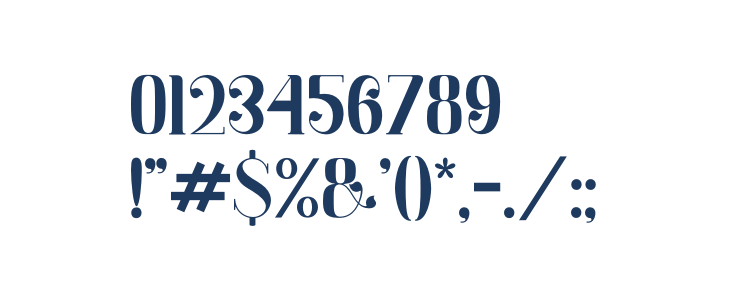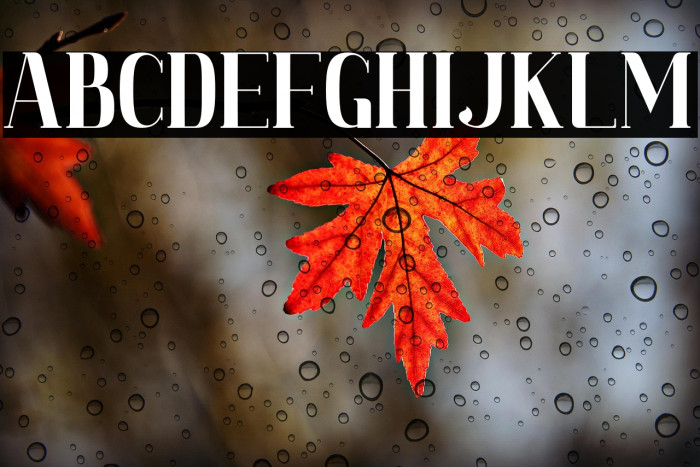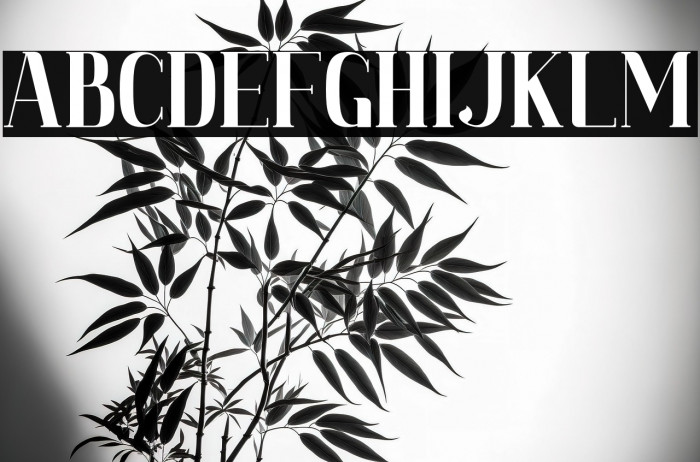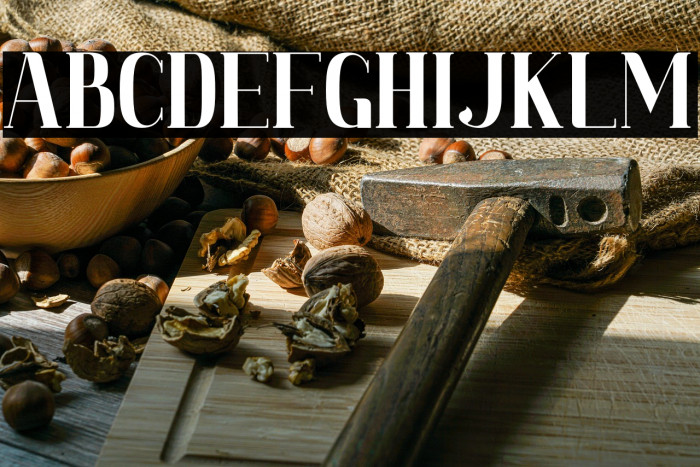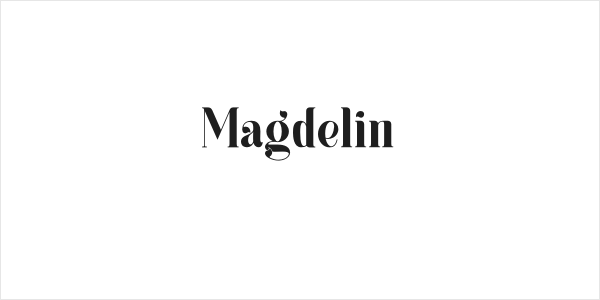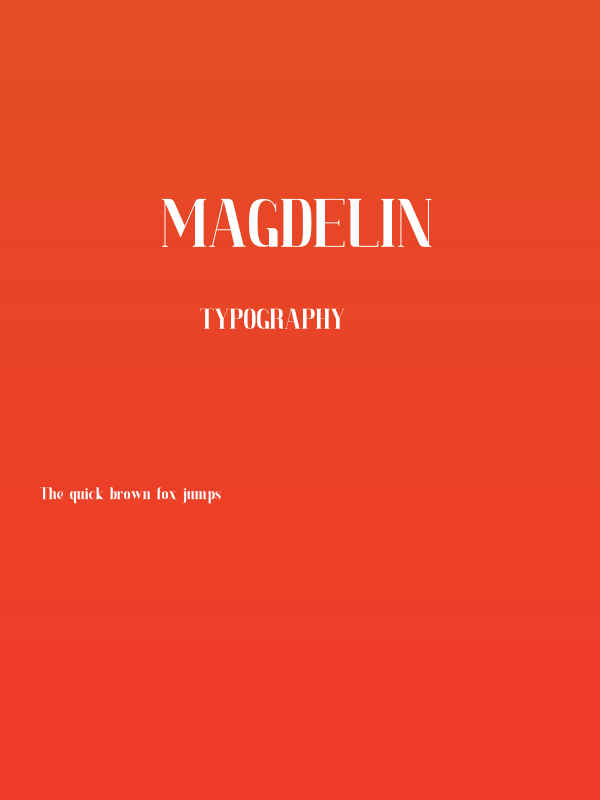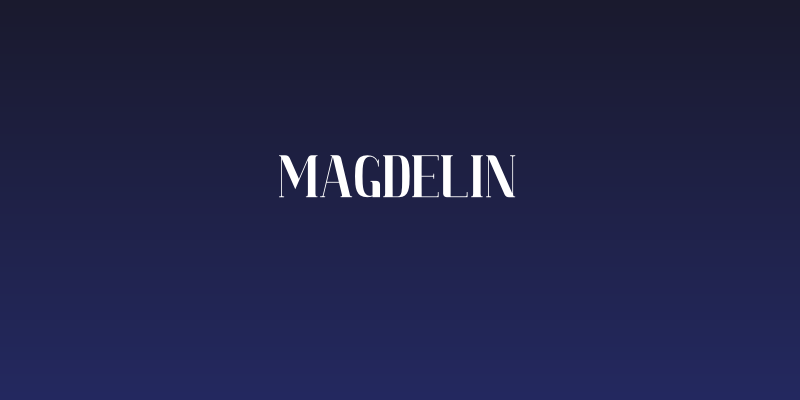
Magdelin Font
Magdelin Description
This font features a bold and elegant design with high contrast between thick and thin strokes, giving it a sophisticated and modern appearance. The uppercase letters are tall and commanding, while the lowercase letters maintain a consistent style with unique flourishes, particularly noticeable in characters like 'g' and 'y'. The numerals are equally stylish, with a distinct flair that complements the overall aesthetic. Special characters are designed with the same attention to detail, ensuring a cohesive look across all glyphs. The font's design is both decorative and functional, making it suitable for a variety of uses.
A bold, high-contrast font with elegant flourishes and a modern style from Uncategorized fonts.
- Font: Magdelin
- Proposed Projects: Ideal for branding, editorial design, luxury packaging, and high-end advertising.